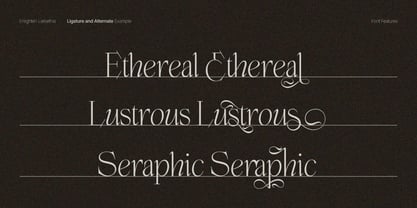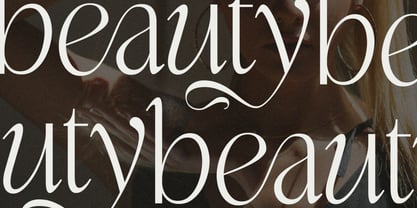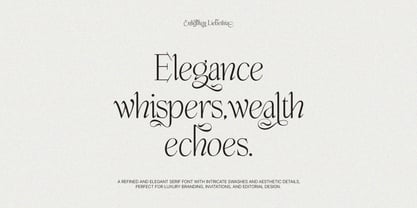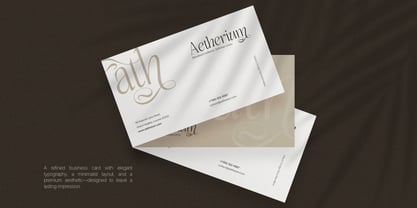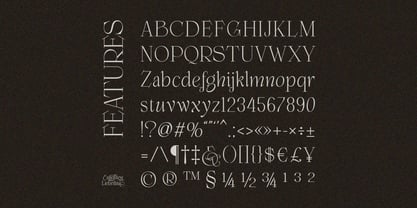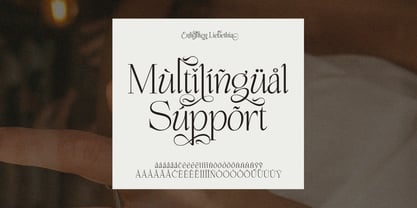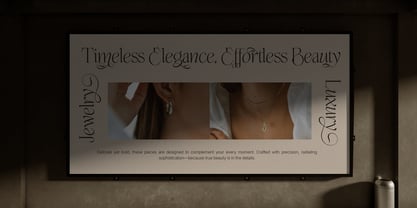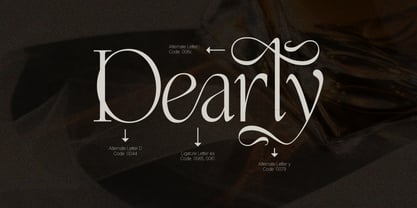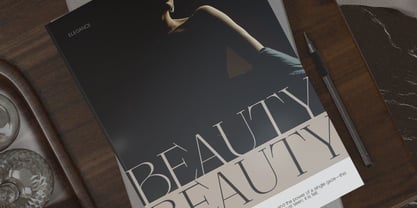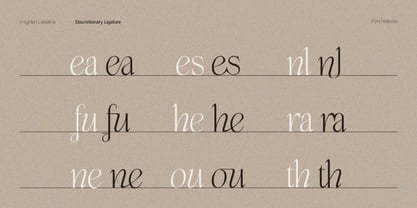
Enlighten Liebethia Pro
The Enlighten Liebethia Pro Font Family was designed by Virgiawan Listanto and published by Inviline. Enlighten Liebethia Pro contains 3 styles and family package options.
Introducing Enlighten, an elegant aesthetic serif font. Its refined curves and delicate details bring a touch of classic sophistication to any design project. Perfect for creating elegant logos, sophisticated branding, or adding a touch of timeless beauty to your typography. Enlighten effortlessly balances timeless elegance with contemporary appeal, making it a versatile choice for both print and digital applications.
Explanation: In this font, the available variable is solely the alternate. You can select alternate characters to give a more unique look to your design.
• Uppercase & Lowercase Characters: Fully designed for a complete typographic experience
• Numerals & Punctuation: All the numbers and punctuation marks you need for any design task
• Multilingual Support: Includes characters for multiple languages, ensuring global usability
Features:
• High-Quality Design: Each font is crafted with attention to detail, ensuring a polished and professional look